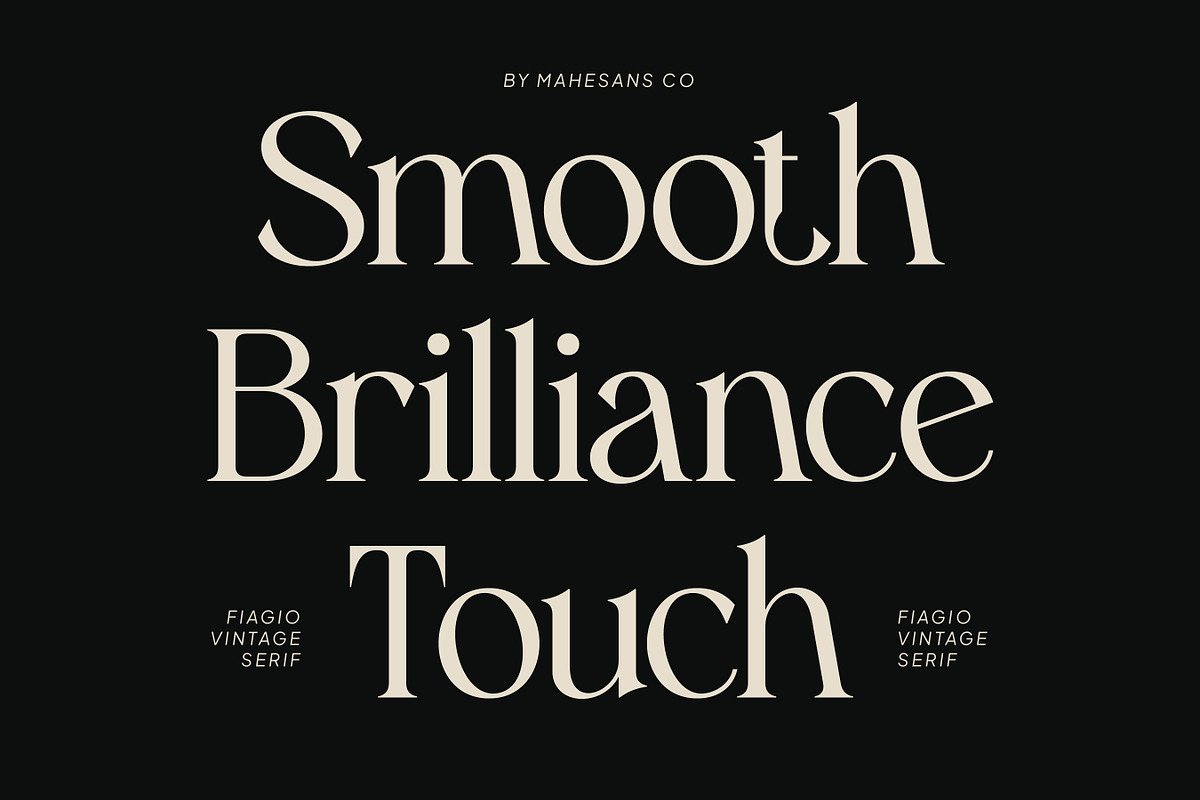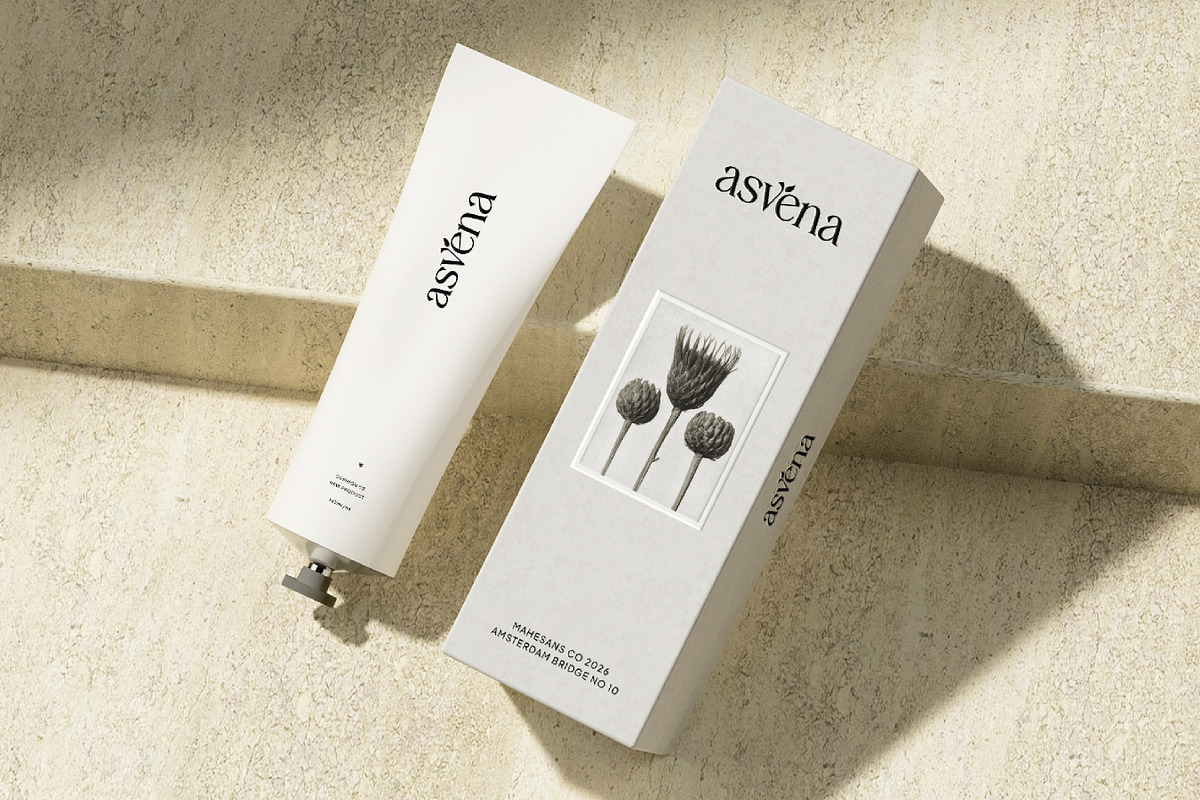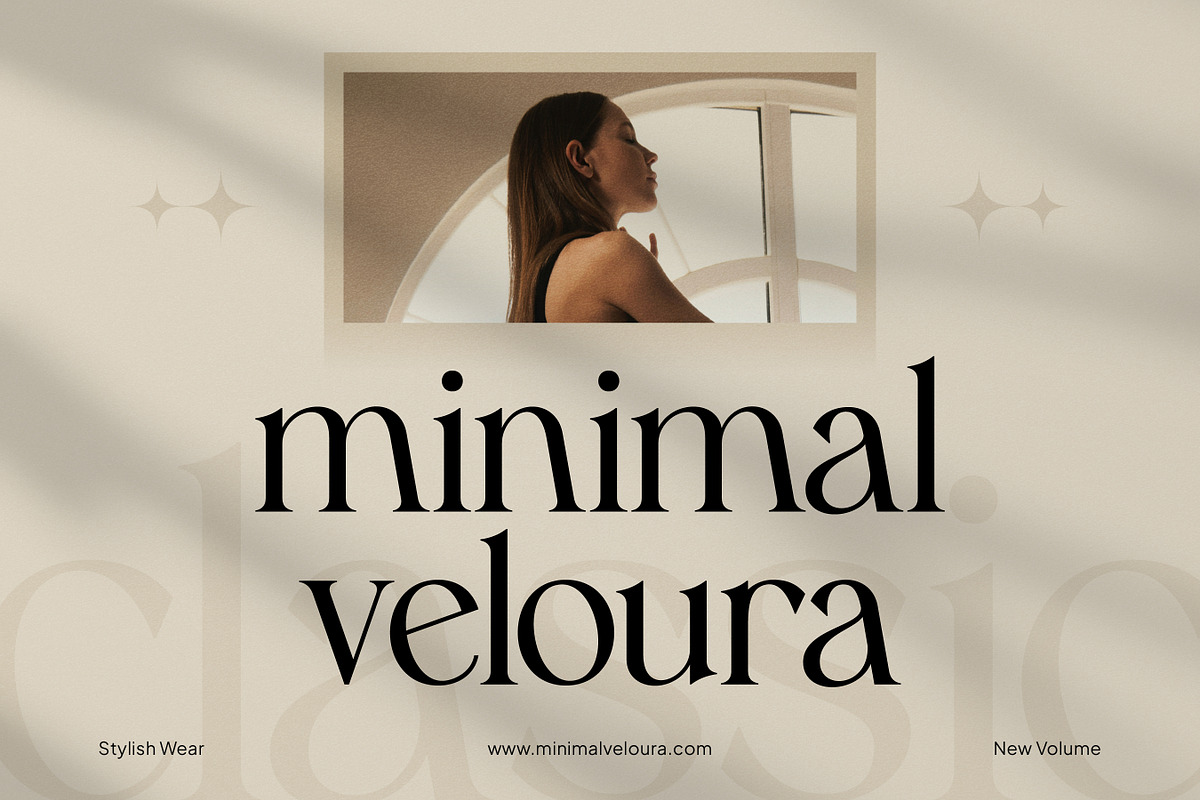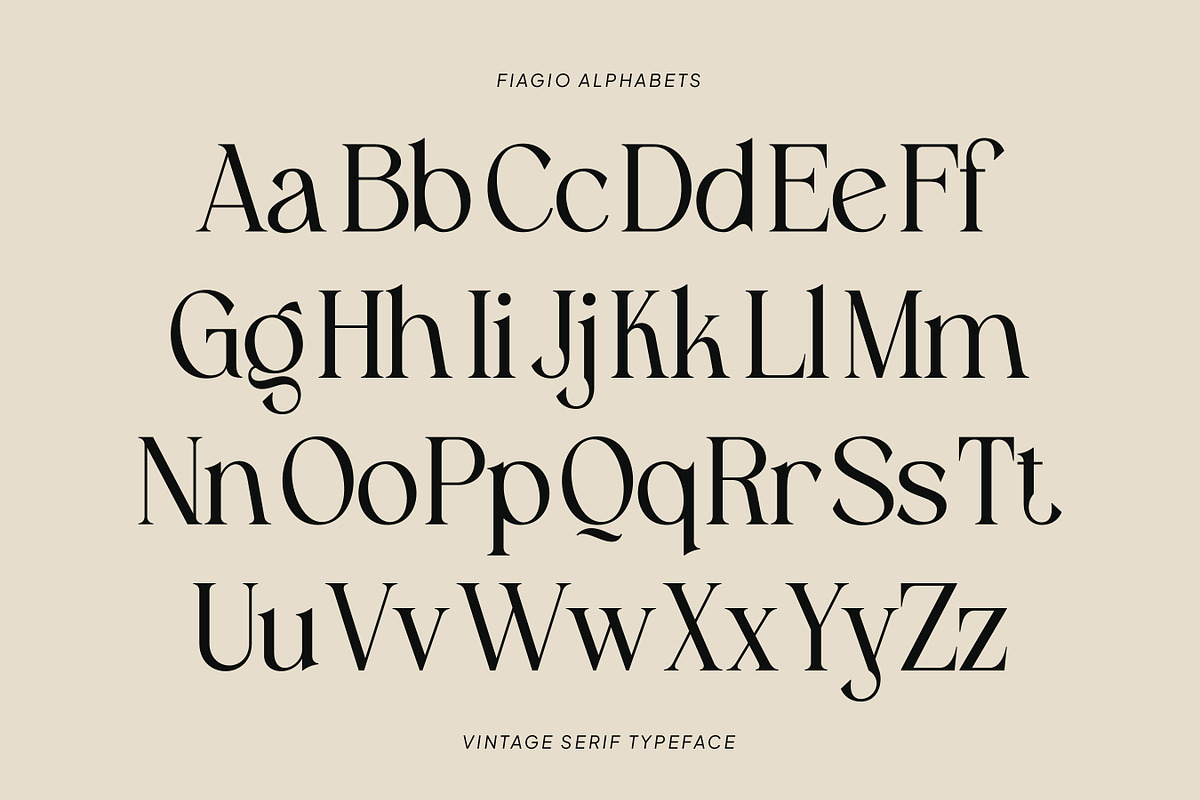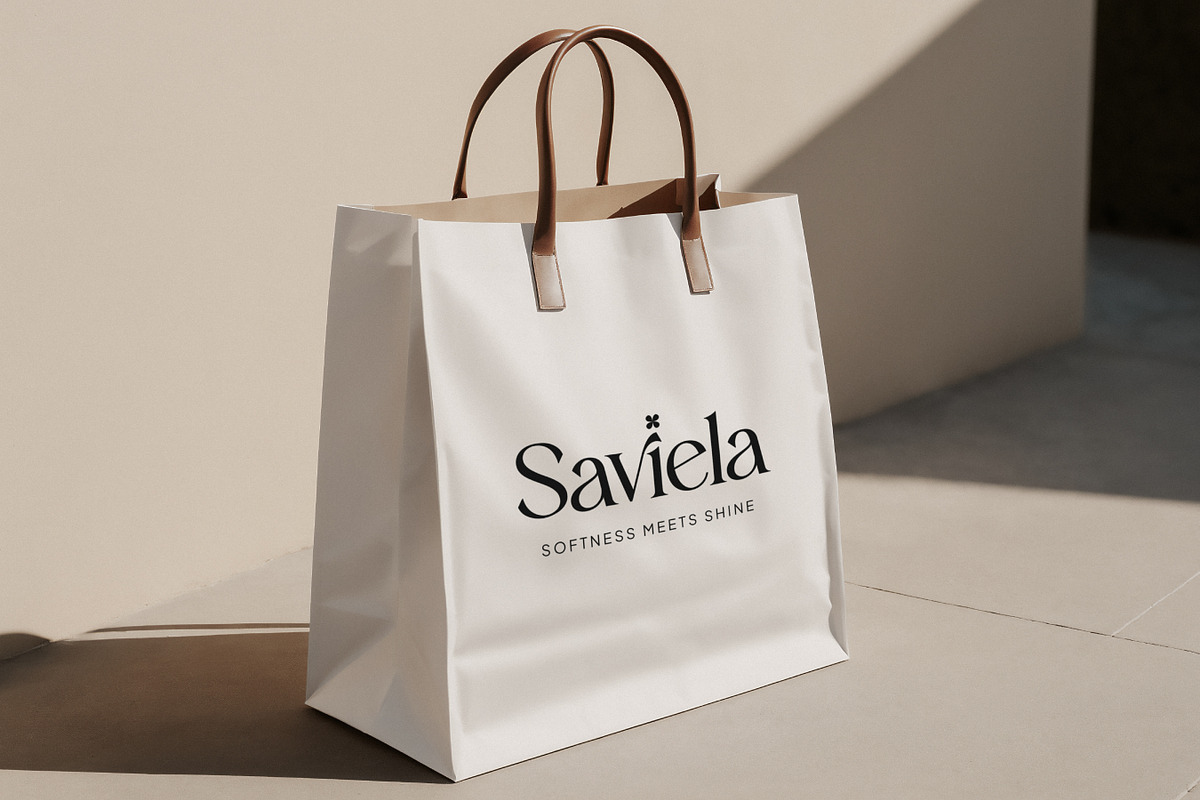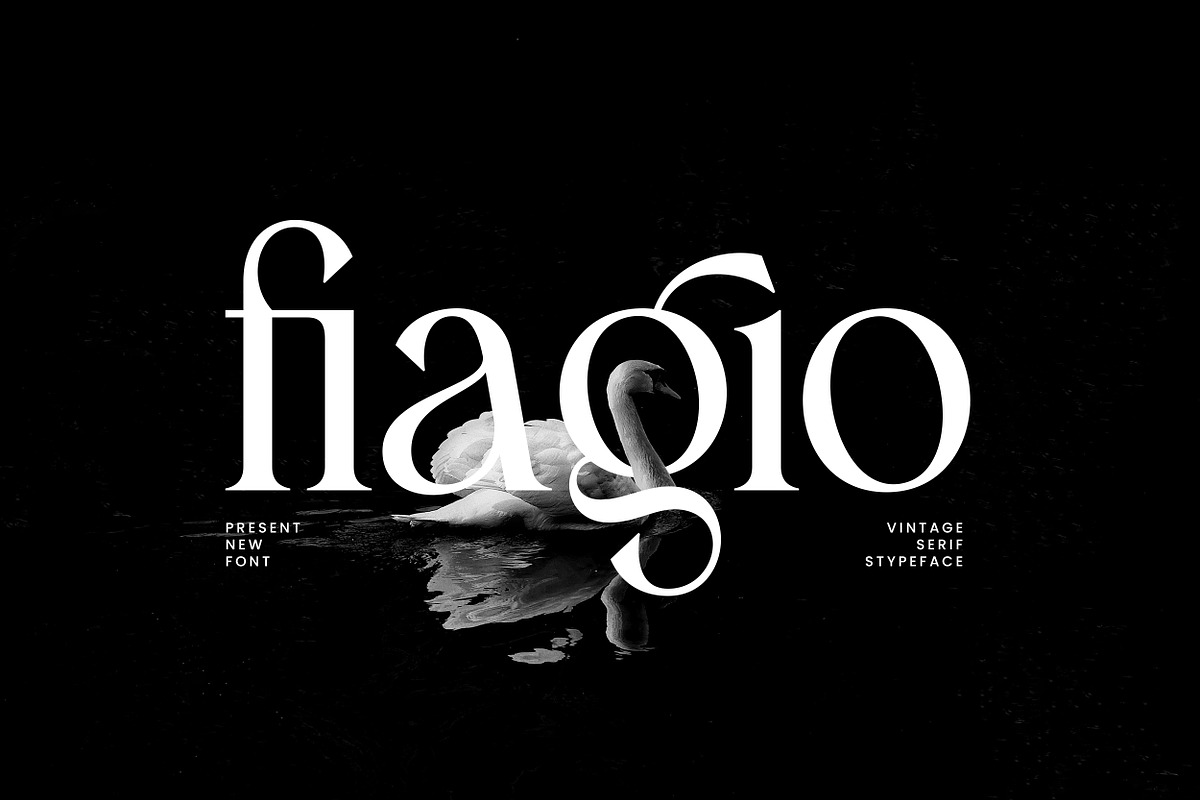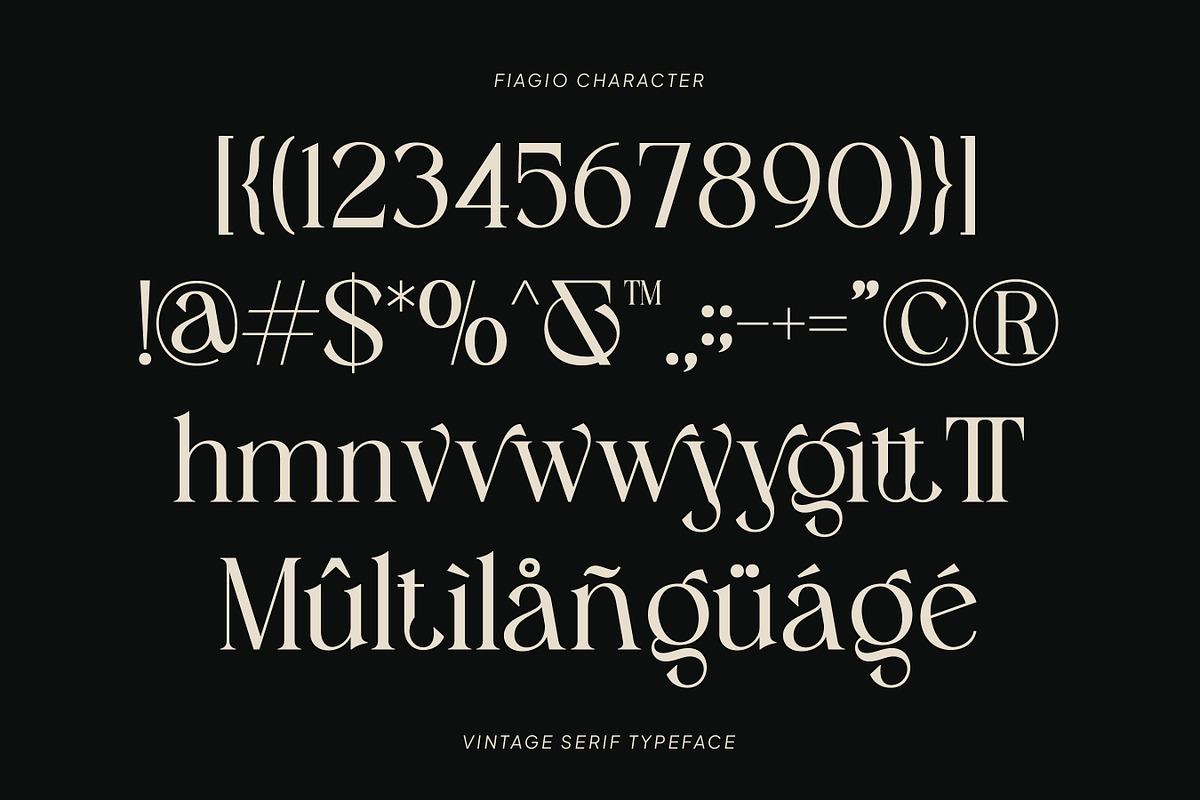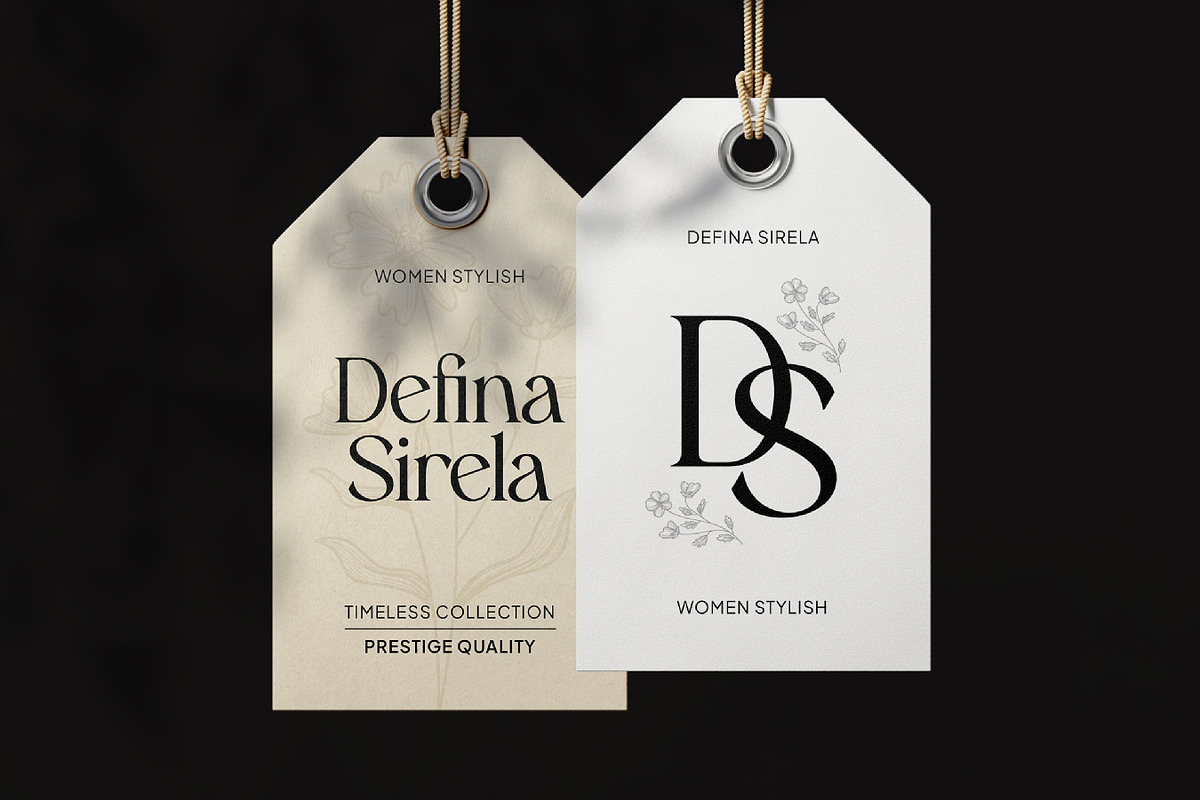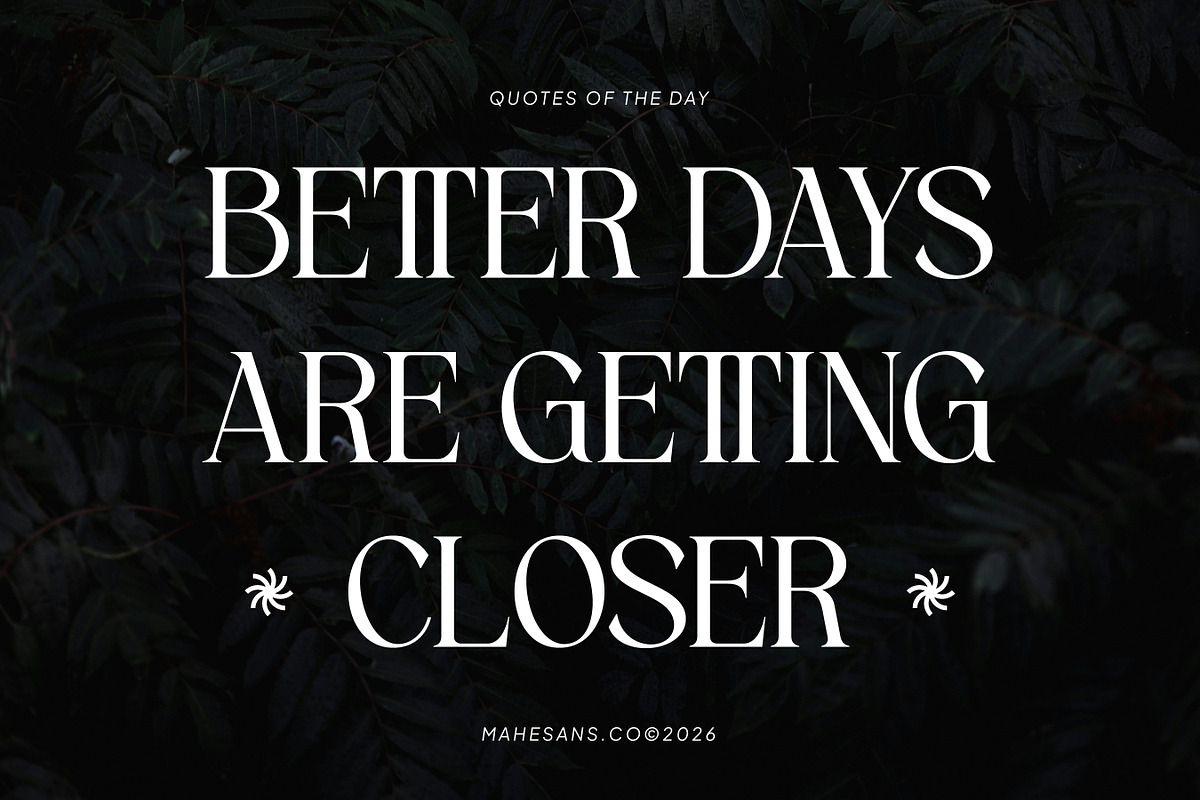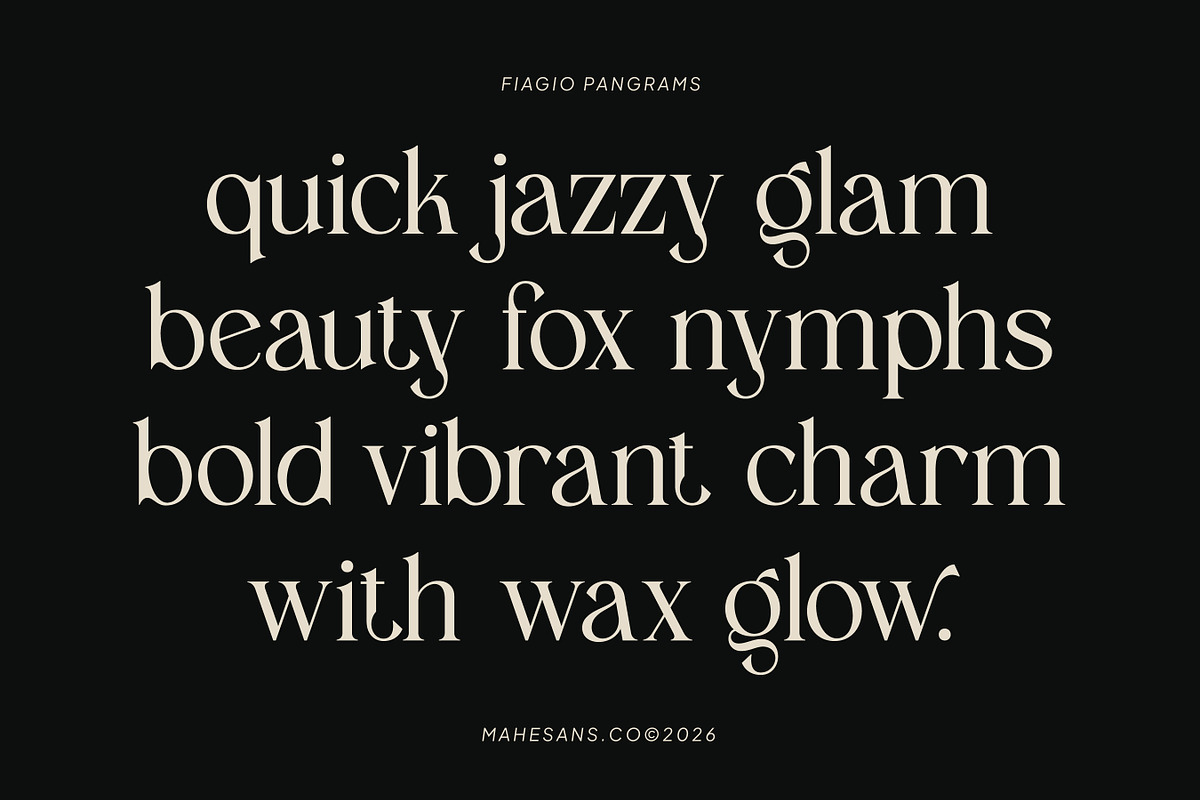
Fiagio – Elegant Vintage Serif
Fiagio is a vintage-inspired serif typeface designed to bring a graceful and confident tone into your visual identity. Built with elegant proportions, stylish curves, and high-contrast strokes, this typeface blends timeless editorial aesthetics with contemporary branding needs.
Fiagio works perfectly for luxury branding, fashion labels, wedding stationery, cosmetic packaging, magazines, logotypes, social media graphics, and high-end product presentations. Its multilingual support also ensures your designs stay consistent across global audiences.
Whether you're creating a minimalist logo or a bold editorial layout, Fiagio gives your typography a polished, premium presence with just the right amount of personality.
- Multilanguage